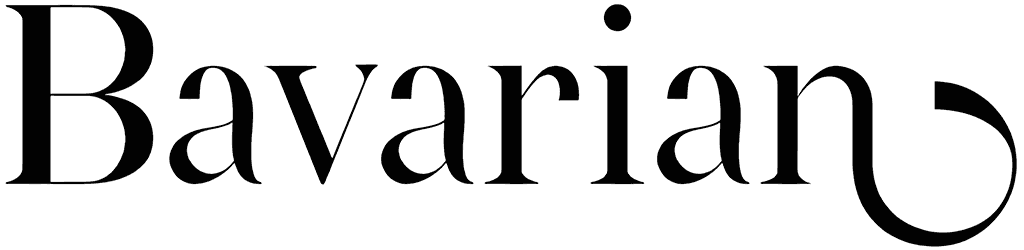
Bavarian Font
One of the reasons for Bavarian’s attention-seeking impact on your business lettering projects is that the capitals seem to be slightly bolder compared to their lowercase versions. That’s enough to make your words stick out.
When that visual playfulness is coupled with its modern charm, there’s no defeating this luxury font. Accordingly, any of your future furniture store signage, flower shop business cards, and music class posters will benefit hugely from Bavarian and its fancy decorative style, such as a swirly font.